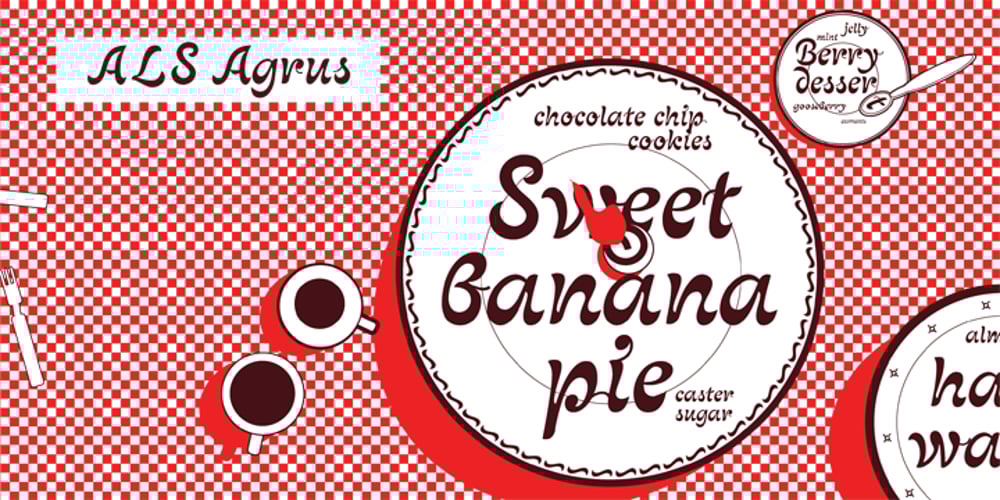
ALS Agrus
ALS Agrus font
ALS Agrus Font Family was designed by Andrij Shevchenko and published by Art. Lebedev Studio. ALS Agrus contains 1 styles and family package options. “Agrus” in Ukrainian means “gooseberry”. The letters are rounded like the berries and the sharp end elements remind of the barbs. In fact, the font is an intricate italic type. Optical compensations are purely decorative and rhyme with thin connecting lines. Design of this font is one hundred percent due to “strength of material”